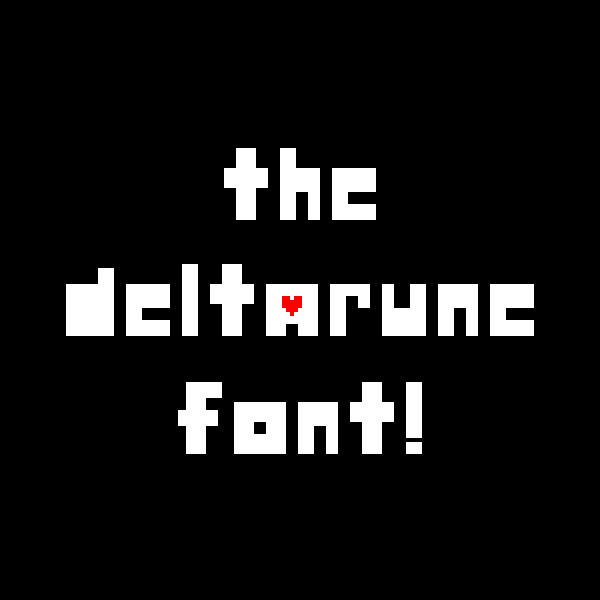
Font name: | Deltarune |
Author: | Retro Gaming |
Note by Retro Gaming | |
So here's a little font I made for the Deltarune Logo, hopefully it should be accurate enough for use. Make sure to set the text size to 18.5 For maximum accuracy use uppercase E for the last e in text. Enjoy! |